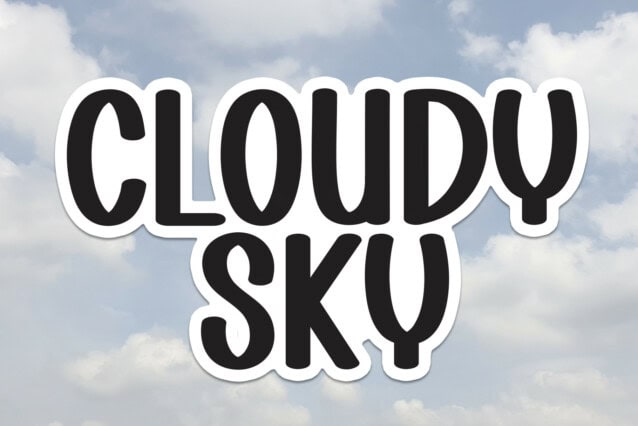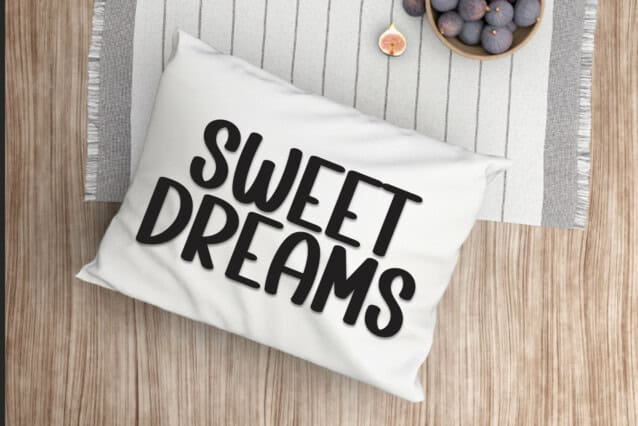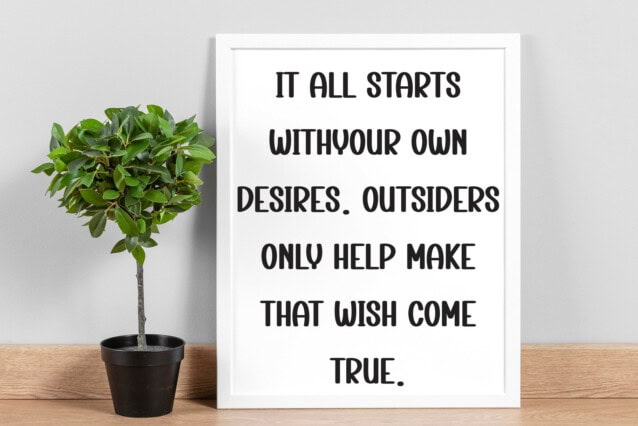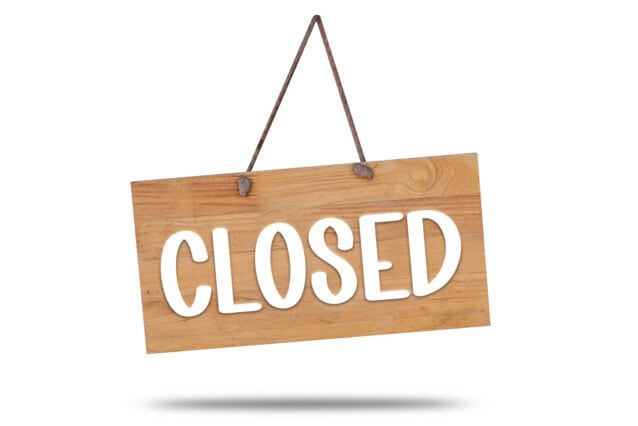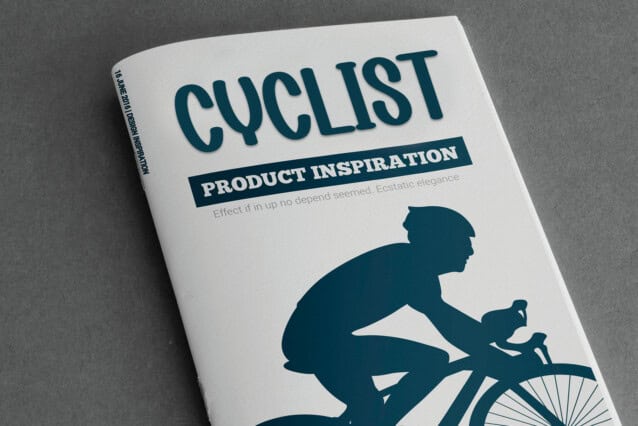
Cloudy Sky Display Font
Cloudy Sky Display Font is a playful handwritten typeface. Ideal for scrapbooking, allowing for creative and personal page titles and captions.